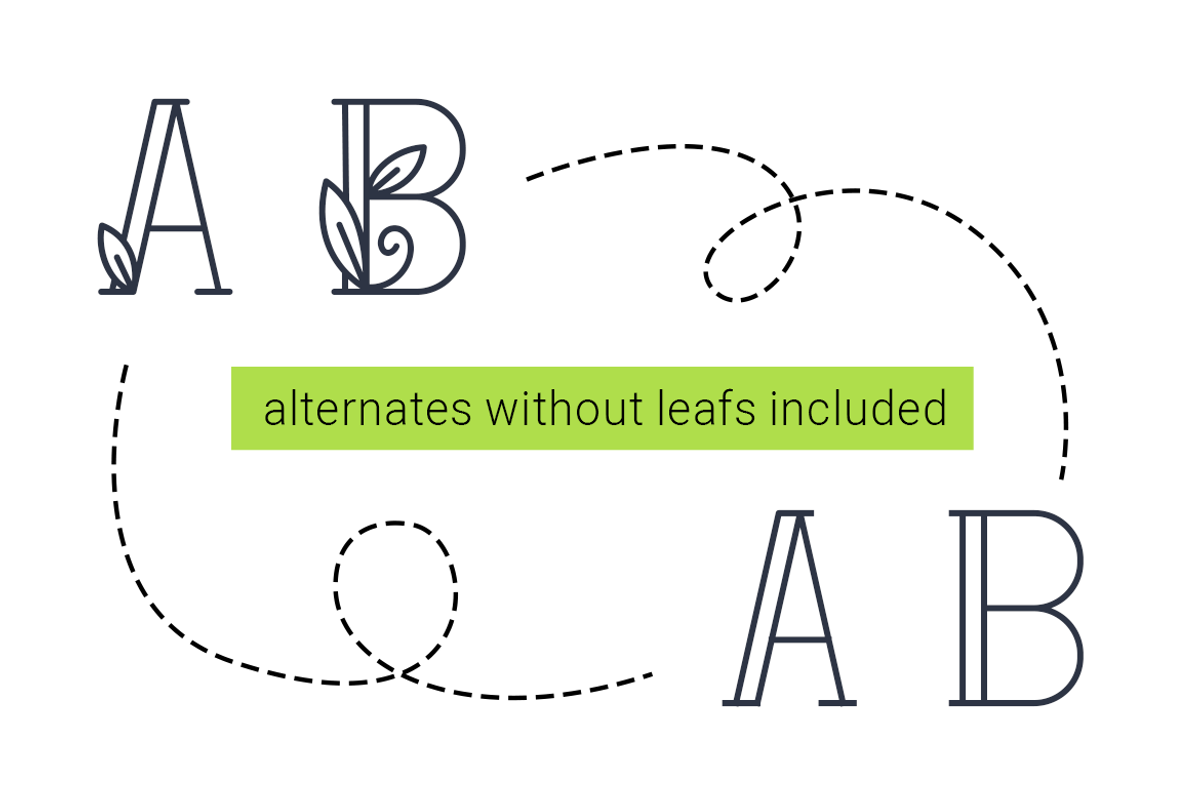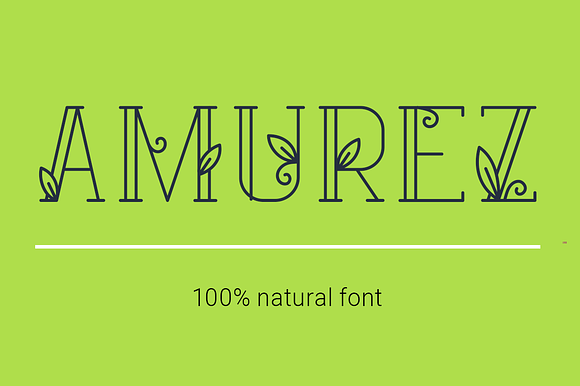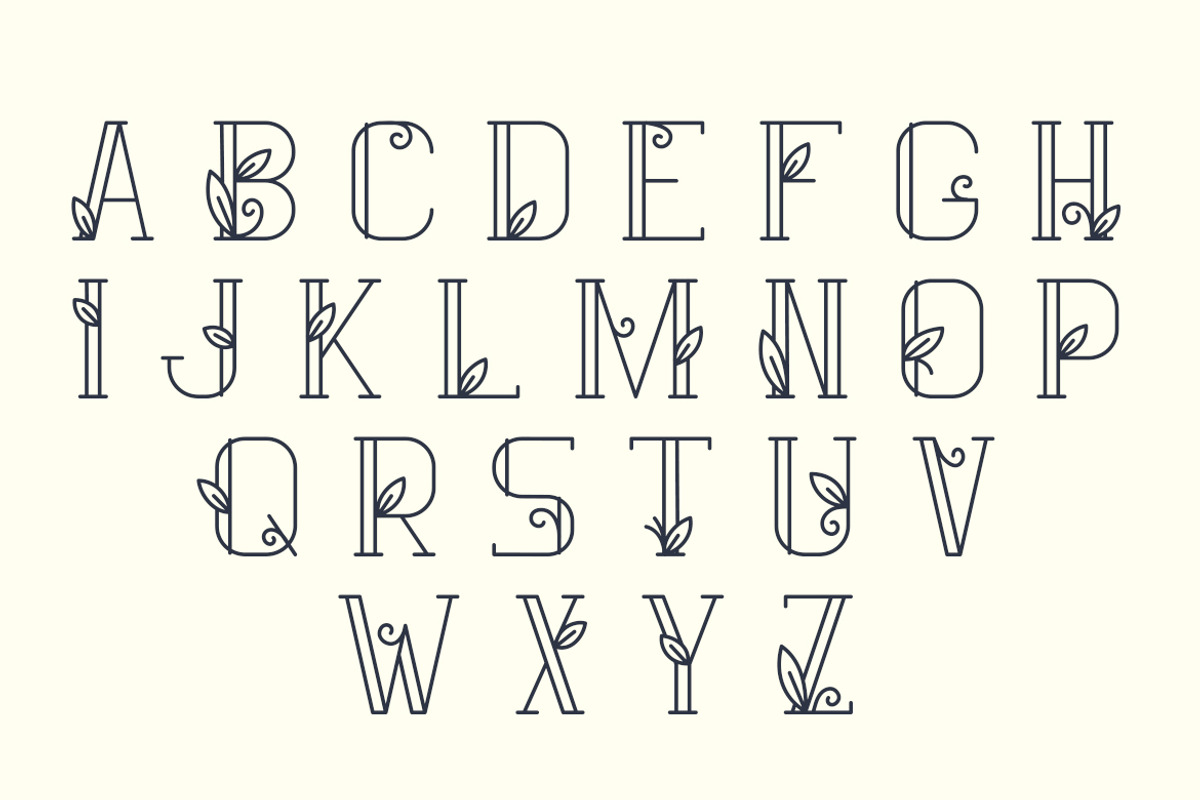
Amurez - delicate natural font
Amurez is a delicate natural serif font with elegant leaves. The font has only uppercase letters. It will allow you to stand out your text. It works perfect to make romantic greeting cards, wedding invitations and many more.
The font has two styles: both with leaves and without leaves. Includes only capital letters.